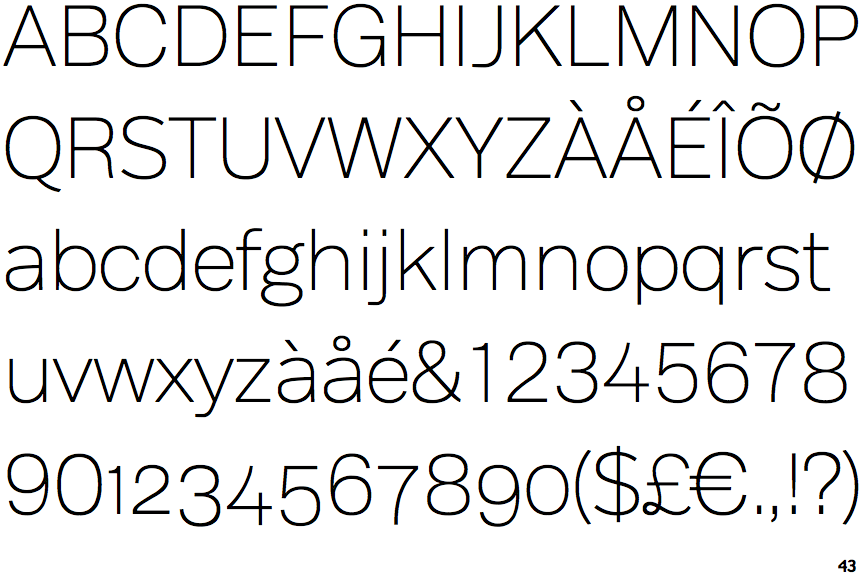
The Best Body Text Fonts 2022
The Best Body Text Fonts 2022. Be aware that the body text extrabold font is free for personal knowledge and use only. Legibility is more important for these fonts than expressiveness.
This font can be used as both a title font or for body text. If you want to create professional printout, you should consider a commercial font. Morton is another modern font family that comes with 9 different font weights.
Morton Is Another Modern Font Family That Comes With 9 Different Font Weights.
I love pangea because it’s clean, but not sterile. The typeface got its name from being used in a book authored by cardinal bembo. Learn how to choose legible, easy to read body text fonts.
Light To Bold All With Matching Italics.
Body is an exquisite handwritten font, masterfully designed to become a true favorite. Playfair is a beautiful font that is perfect for titles and headlines. Body type or body text fonts are the typeface used for this.
Fonts for body text (1759) reset search. To turn the body shapes into a typeface, shui’s team photographed each person (or group), then transformed. Optimal for signage but suitable for setting text.
20 best google fonts for headings and body text playfair display. Variable fontsv0.2 a simple resource for finding and trying. It meets the readability requirement and doesn't bring attention to.
This Font Can Be Used As Both A Title Font Or For Body Text.